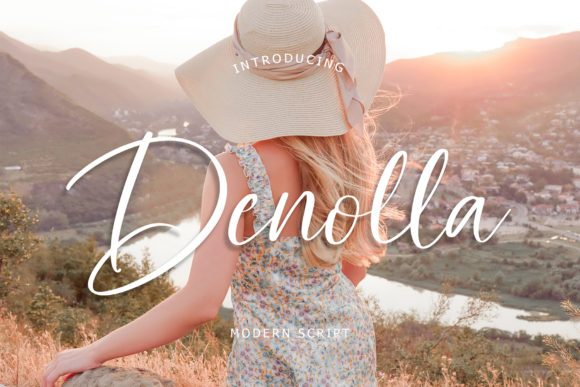
Introducing Denolla, a script font that embodies modern elegance and romantic charm. Its whispy lines, crafted with precision and care, exude a sense of calmness and luxury, making it the perfect choice for adding a touch of sophistication to your creative projects.
With Denolla, your designs will captivate and inspire, leaving a lasting impression on your audience. Whether you're working on branding projects, creating logos, designing wedding invitations or social media posts, Denolla's versatility knows no bounds.
Dive into the world of Denolla and let your creativity flourish. Elevate your branding with a logo that exudes professionalism and charm. Design wedding invitations that tell a story of love and elegance. Create social media posts that stand out from the crowd, captivating your followers with their beauty and grace.
Denolla's versatility shines in product packaging, T-shirt designs, and product designs, adding a touch of elegance to your offerings. Its intricate details and flowing lines enhance the visual appeal of your products, making them irresistible to customers.
Elevate your photography with Denolla's timeless appeal. Use it to create enchanting watermarks that add a subtle touch of artistry to your images. Design invitations and stationery that reflect your personal style and make a statement.
With Denolla, the possibilities are endless. Explore your creativity and see how this remarkable font transforms your projects into works of art. Let Denolla be your muse, guiding you towards design excellence and leaving a lasting legacy of beauty and sophistication.